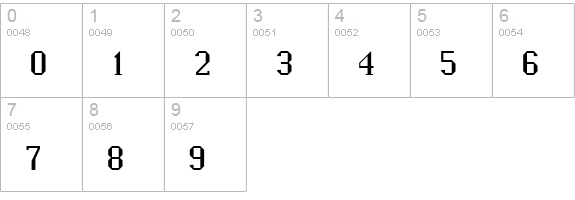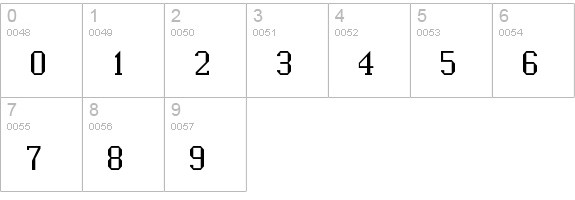
Introducing Ranger Font, a captivating typeface that effortlessly blends modern aesthetics with a touch of vintage charm. With its bold and adventurous letterforms, Ranger Font commands attention and adds personality to any design project. This versatile font is perfect for a wide range of applications, from eye-catching headlines and logo designs to striking posters and social media graphics. Its strong and legible characters make it ideal for both digital and print mediums, ensuring that your message is effectively conveyed to your audience. One of the most appealing aspects of Ranger Font is that it is freely available to download at FontsMarket.com. This means that you can easily access this remarkable typeface and incorporate it into your creative endeavors without any hassle. Whether you're a professional designer or an aspiring artist, Ranger Font empowers you to bring your visions to life with its unique and captivating style. Designed with meticulous attention to detail, Ranger Font offers a wide range of characters and glyphs, providing you with countless creative possibilities. From its clean and sharp lines to its intricate and decorative elements, every aspect of this font has been carefully crafted to ensure a visually stunning and impactful result. Enhance your designs, captivate your audience, and express your creativity with Ranger Font. Download it for free at FontsMarket.com and unlock a world of typographic possibilities. Whether you're working on a branding project, a publication, or a personal artwork, Ranger Font will elevate your designs to new heights and make a lasting impression. Embrace the freedom and unleash your imagination with Ranger Font today.